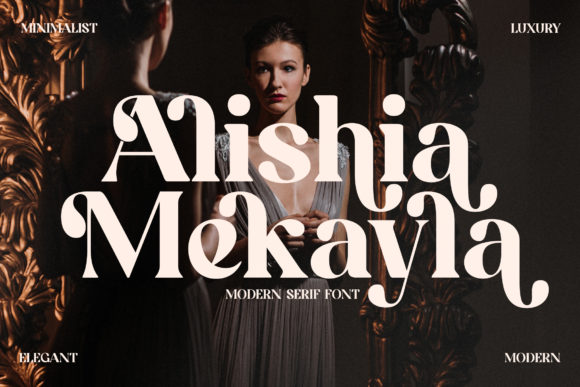
Prepare to be swept away by the enchanting Alishia Mekayla font, a masterpiece forged by the renowned Storytype Studio. This modern yet classic serif font exudes a timeless allure that will captivate your senses.
Step into a world of elegance and sophistication with Alishia Mekayla. Its meticulously crafted curves and graceful lines dance across the page, evoking a sense of luxury and refinement. Picture your designs adorned with this font, radiating an aura of timeless charm that will leave a lasting impression.
From the moment you lay eyes upon Alishia Mekayla, a symphony of possibilities will unfold before you. Its versatility knows no bounds, making it the perfect choice for a myriad of creative endeavors. Whether you're crafting an unforgettable anniversary card, designing a captivating book cover, or giving life to a fashion brand that exudes sophistication, Alishia Mekayla will elevate your designs to new heights of beauty and distinction.
So, if you seek a font that embodies elegance, timeless appeal, and effortless versatility, look no further than Alishia Mekayla. Let its enchanting presence grace your designs and watch as they transform into captivating works of art that will leave an indelible mark on all who behold them.